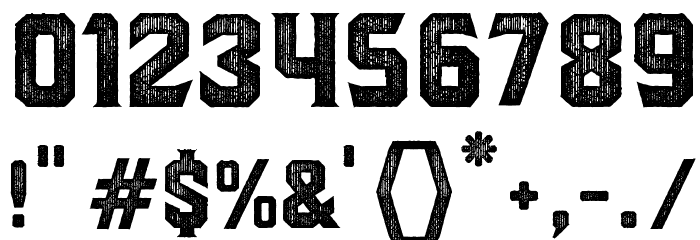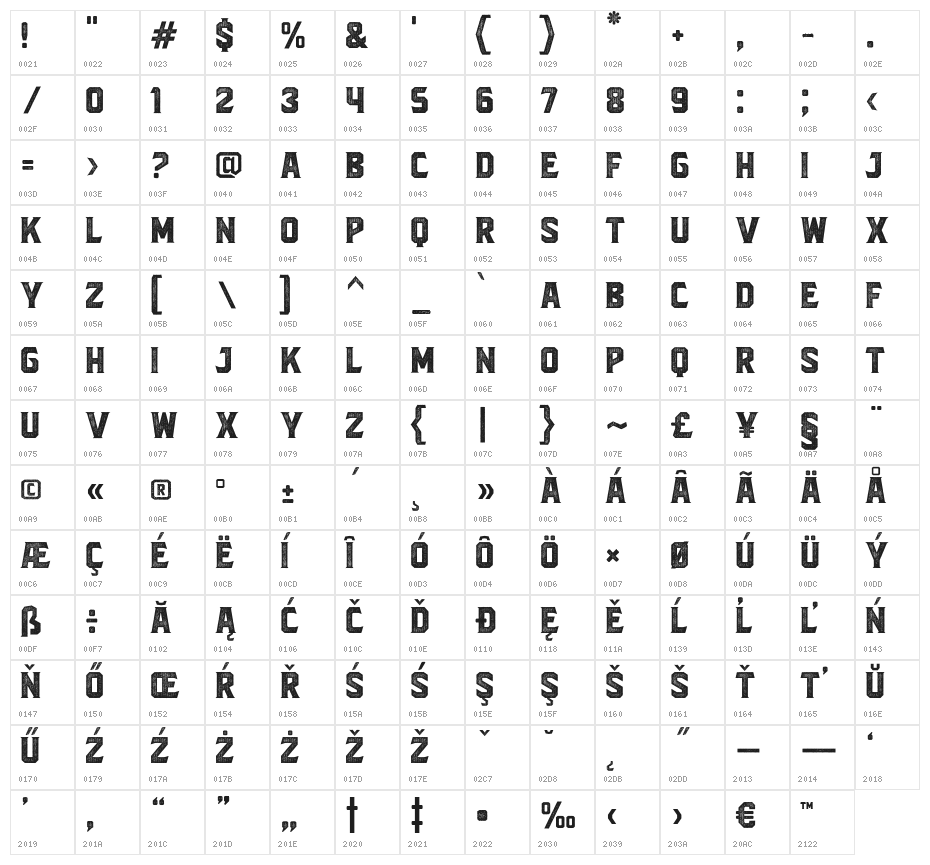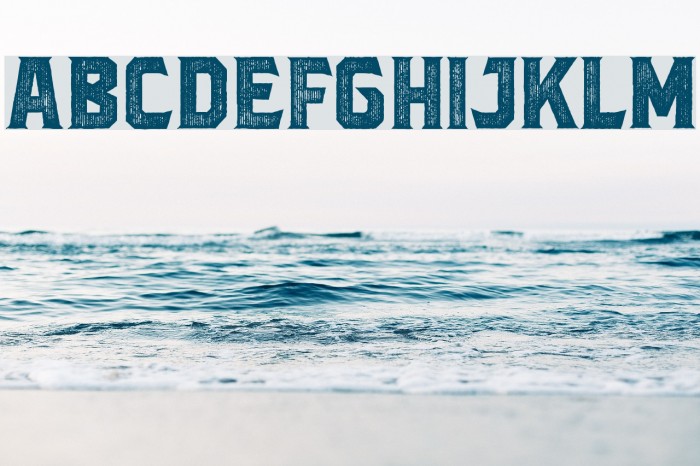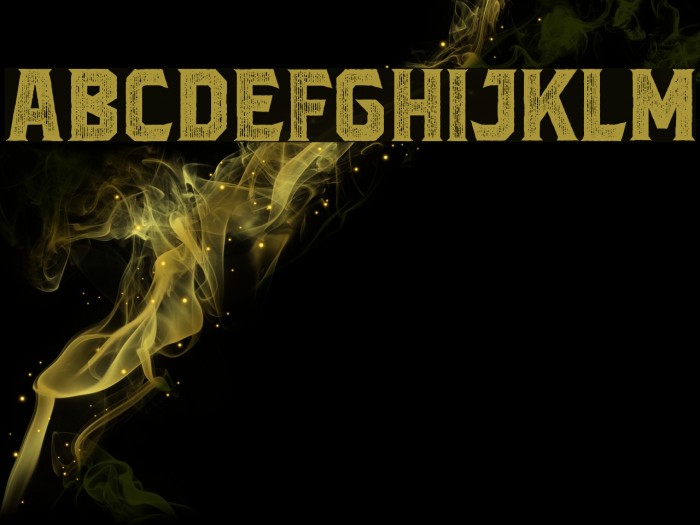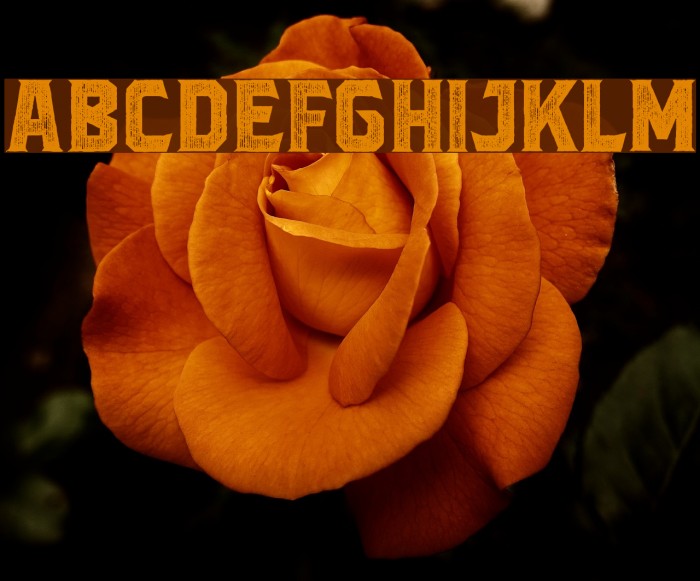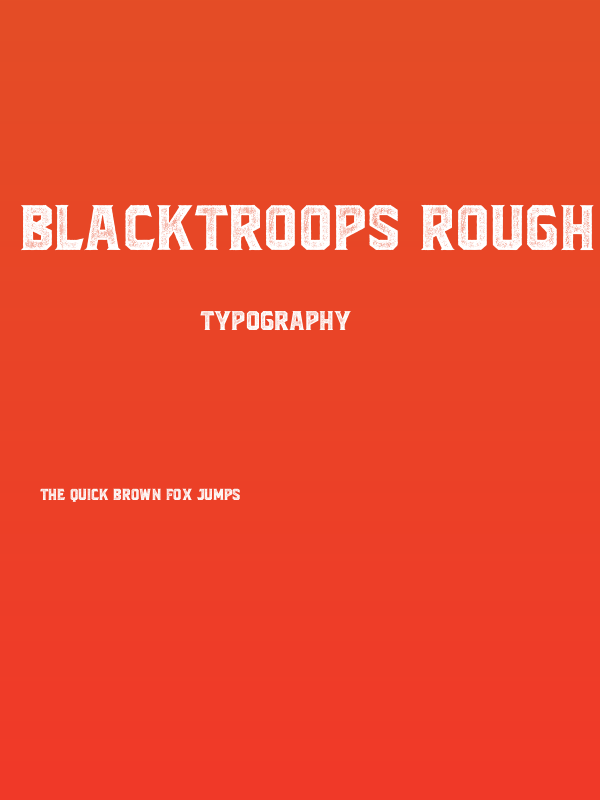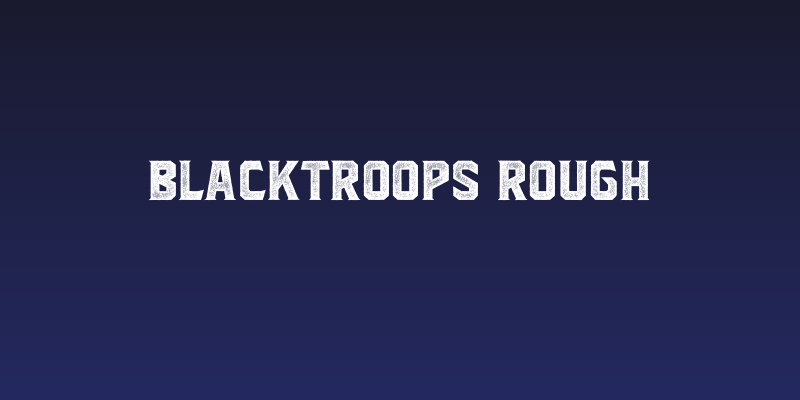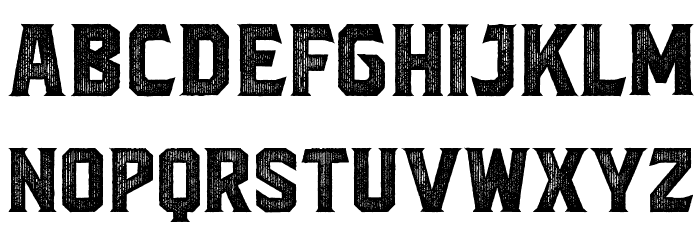
Blacktroops Rough Font
Blacktroops Rough Description
This font features a rugged, textured appearance reminiscent of distressed or worn surfaces. The characters are bold and impactful, with a rough, hand-crafted look that adds a sense of authenticity and vintage charm. The uppercase letters are strong and commanding, while the lowercase letters maintain a consistent style. The numbers and special characters follow the same aesthetic, ensuring a cohesive look across all text. This font's unique texture and bold presence make it ideal for projects that require a strong visual impact.
| Proposed Projects | Ideal for posters, branding, packaging, and any project needing a vintage or rugged aesthetic. |